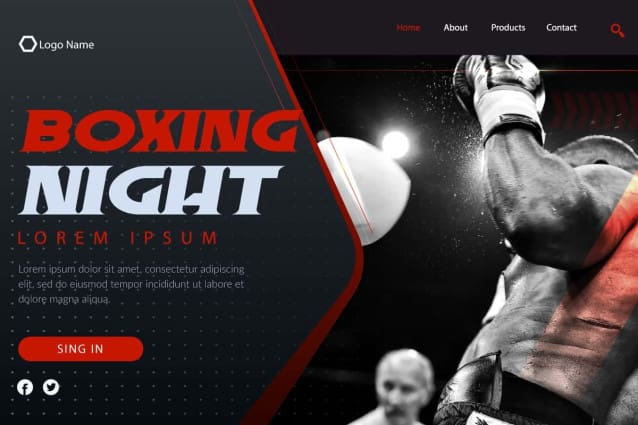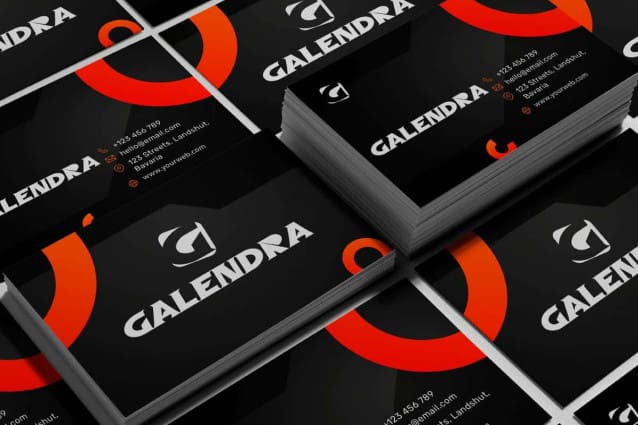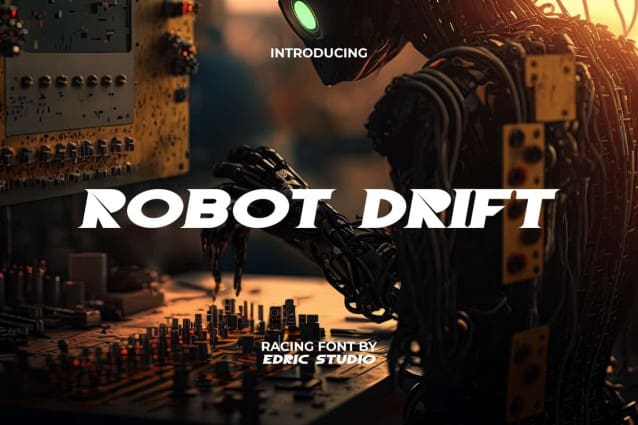
Robot Drift Font
Robot Drift Font is a bold futuristic racing display font with a distinctive shape making it perfect for contemporary look. Judging from the heavy proportions of the letters, your design will stand out and be seen giving the font a strong rhythm. This would be great for titles and other things like, cards design, headers, headline, product labels, screen print, stationery, sticker, website, etc.
Robot Drift Font is designed to be sporty tech with a futuristic aesthetic that is suitable for use in digital and print aspects. This will help you feel the energy contained within. The font includes a complete set of ALL CAPS for both Upper and Lower case letters, Number, Punctuation, and Symbol. Perfect for things that focus on the tech field, or also like accessories and merchandise, crockery, fitness centers, games, outdoor activity gear, sportswear brands, wrestling sport, and more. Add this font to your favorite creative ideas and watch how it works!
Robot Drift Font also supports multilingual characters which are ready to use either on Windows or Mac machines with a simple installation. Combine different characters for a bespoke, handcrafted feel. It’s tested to work well in the Adobe Apps (Illustrator, Adobe InDesign, Adobe Photoshop) even work on Microsoft Word. All of these characters are available through the glyph panel, moreover each letter has its own unicode (PUA) so you can access all the characters easily.